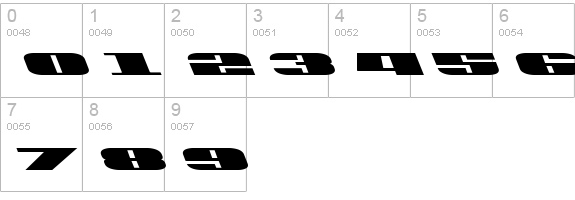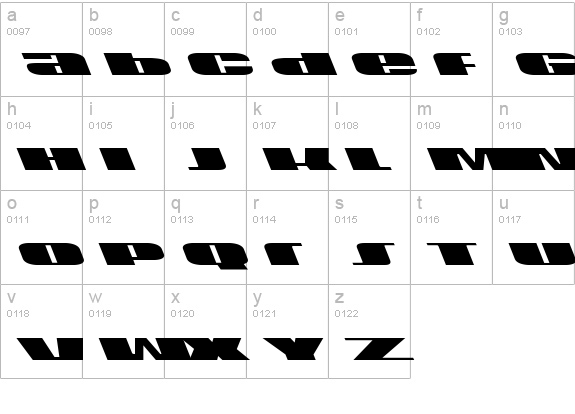
U.S.A. Left Font Details
U.S.A. Left font is a captivating and dynamic typeface that exudes a sense of freedom and creativity. With its bold and distinctive design, this font is perfect for those who want to make a powerful statement in their designs. Whether you're creating eye-catching posters, attention-grabbing headlines, or unique branding materials, U.S.A. Left font will surely leave a lasting impression. This font is freely available to download at FontsMarket.com, making it easily accessible to designers and enthusiasts alike. Its versatility allows it to be used in various projects, from print to digital media, ensuring that your message will be conveyed with style and impact. U.S.A. Left font features a unique combination of sharp angles and smooth curves, resulting in a harmonious balance between strength and elegance. Its bold and confident letterforms demand attention, while its soft edges add a touch of sophistication. Whether you're aiming for a patriotic theme or simply want to add a touch of boldness to your designs, U.S.A. Left font is the perfect choice. Its versatility and expressive nature make it a go-to option for designers looking to make a memorable impact. Download U.S.A. Left font today from FontsMarket.com and unleash your creativity with this stunning typeface.